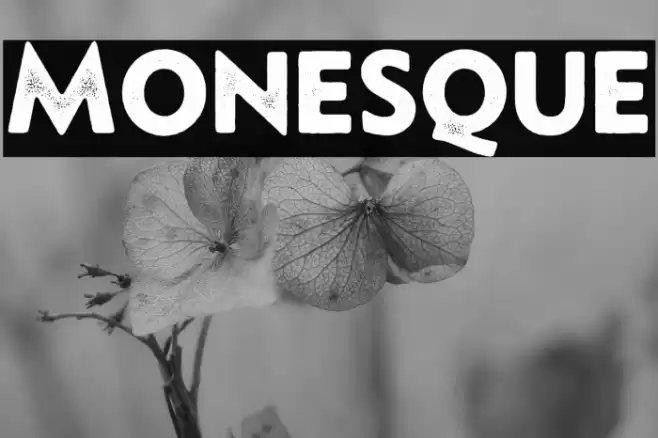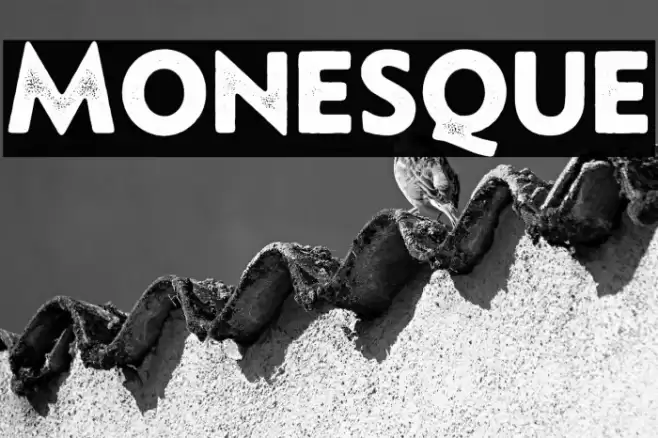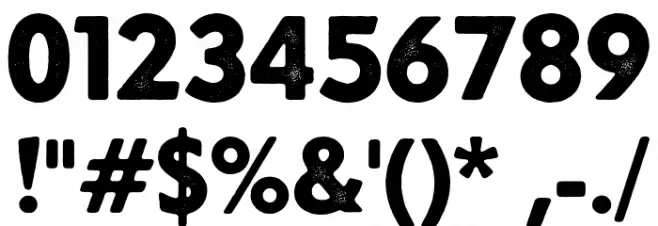
Monesque Font
Monesque Description
This font features a bold and impactful design with a distressed texture that gives it a vintage and rugged appearance. The uppercase letters are uniformly bold, with a slightly rounded geometric style, making them highly legible and attention-grabbing. The numbers and special characters maintain the same boldness and texture, ensuring consistency across all characters. The distressed effect adds a unique character, making it suitable for projects that require a retro or industrial feel.
A bold, distressed font with a vintage, rugged appearance from Uncategorized fonts.
- Proposed Projects: Ideal for posters, branding, logos, and packaging that require a vintage or industrial aesthetic.
- Overall Style: Vintage